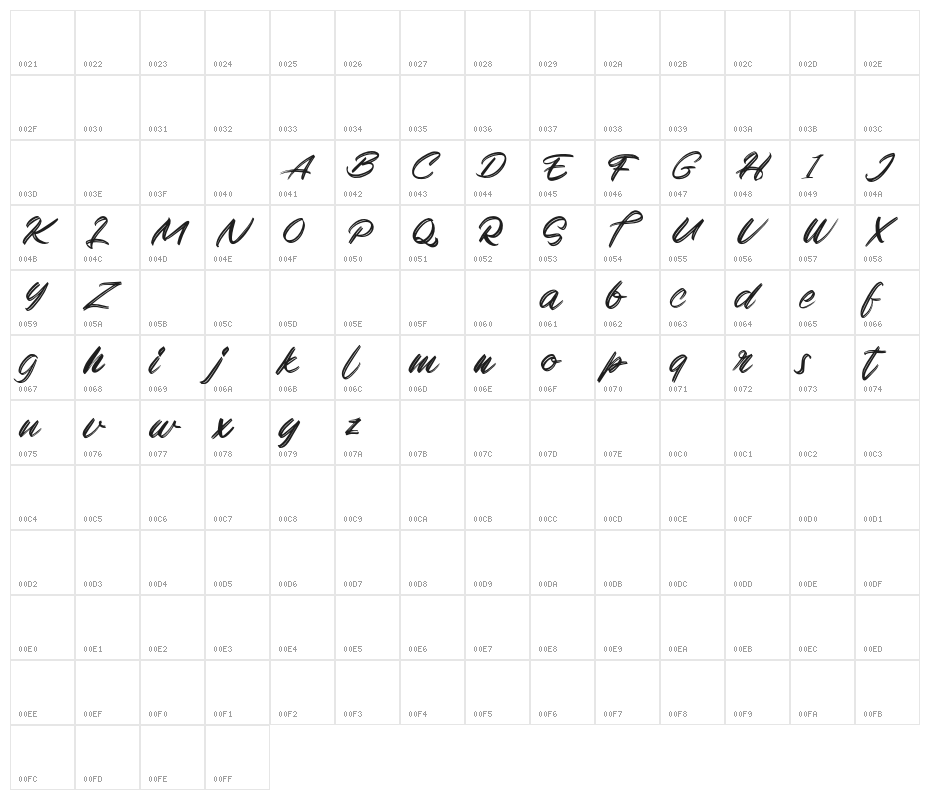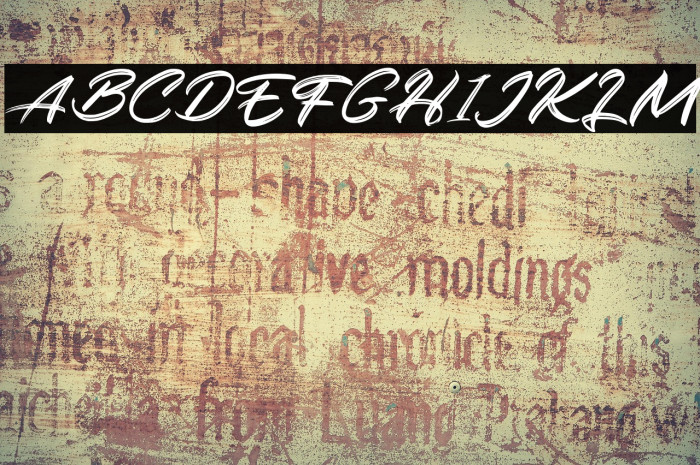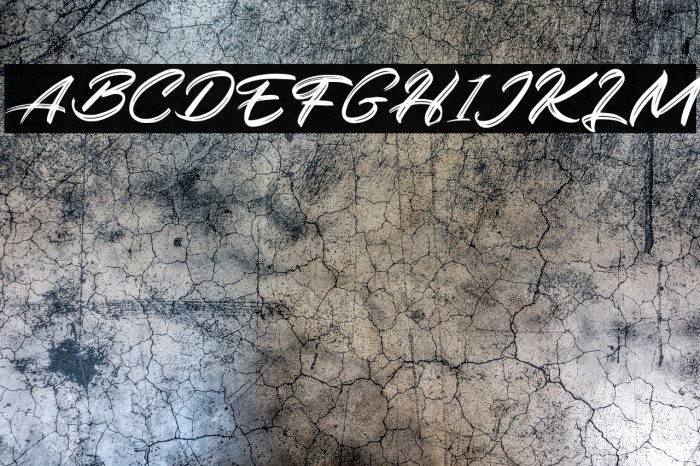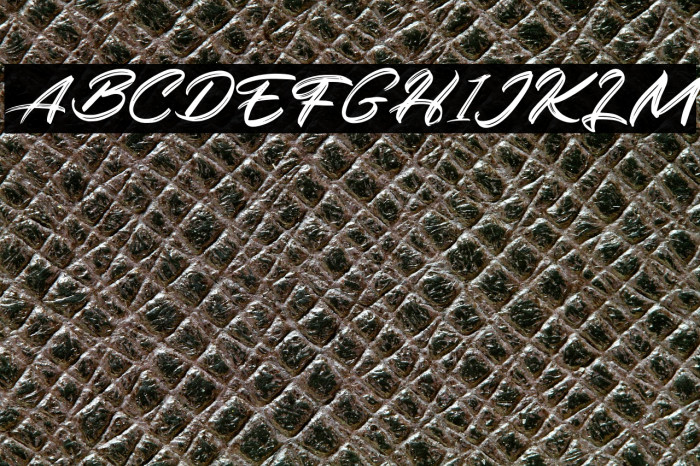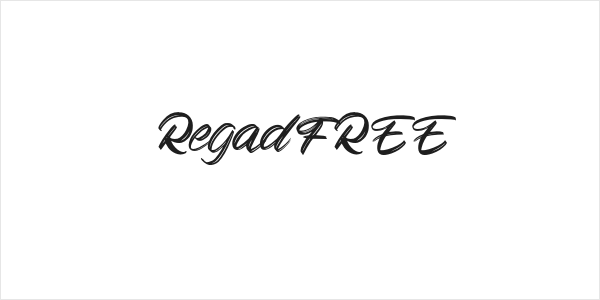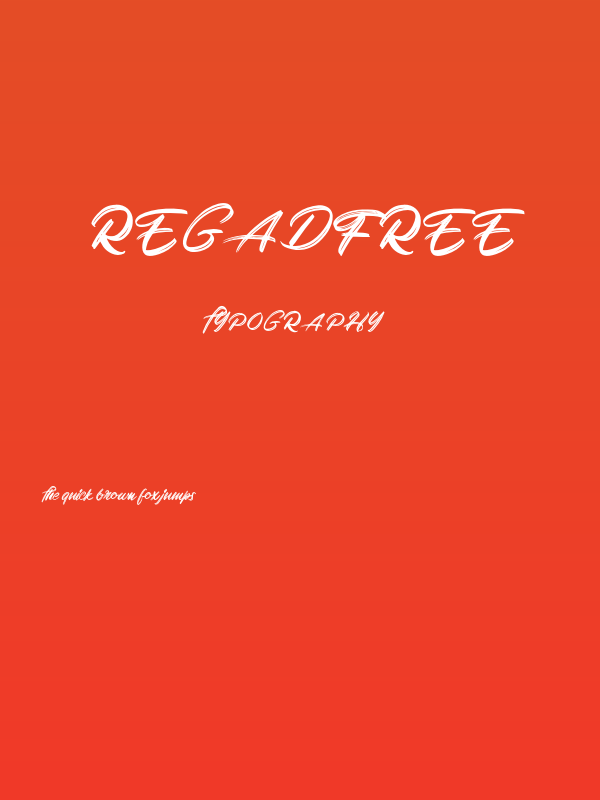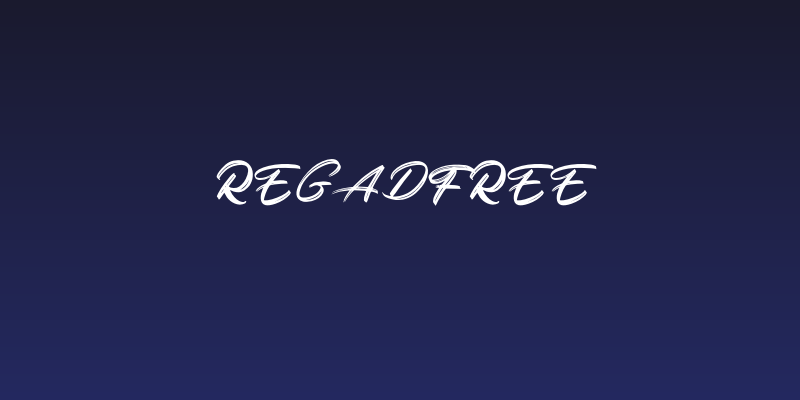
RegadFREE Font
RegadFREE Description
This font exhibits a dynamic and energetic script style, characterized by its fluid, cursive strokes and bold presence. The letters are interconnected with sweeping lines, giving it a sense of motion and flair. The uppercase letters are slightly more restrained, maintaining a balance between elegance and expressiveness, while the lowercase letters are more flamboyant, with exaggerated loops and curves. The overall appearance is both artistic and modern, making it suitable for creative and eye-catching designs. The font's boldness and unique character make it stand out, ideal for projects that require a strong visual impact.
| Use Case | Logos, Headlines, Artistic designs |
| Proposed Projects | Ideal for branding, logos, invitations, and artistic posters. |